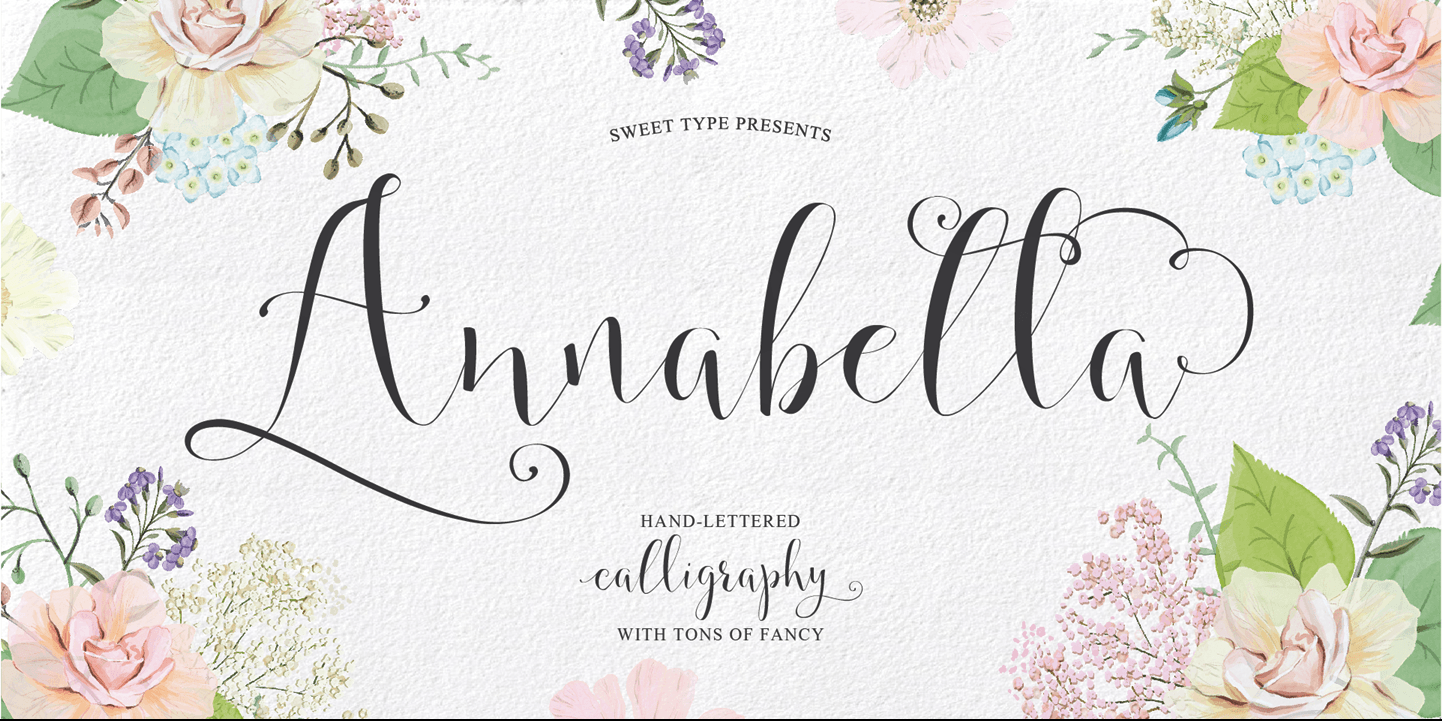
Annabella
Meet Annabella. Elegant and sweet hand-lettered calligraphy-style script.
She's soon to be your favorite for weddings, stationary, logos and more.
- 9 Lower-case styles
- 3 Upper-case styles
- Additional Ampersands and Common Letter Combinations
- Multi-lingual Glyphs
- International and Special Punctuation
You'll have so much fun creating your own hand-lettered text styles. The combinations of sweet swirly letters are endless.